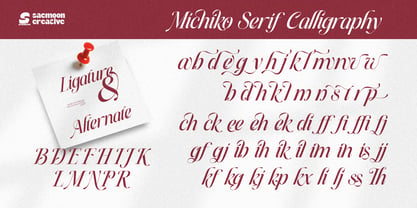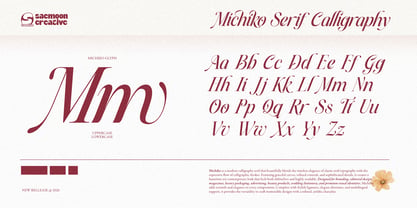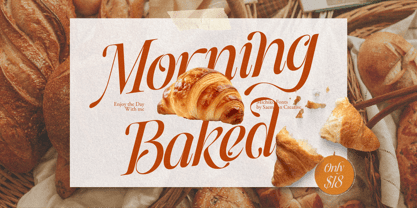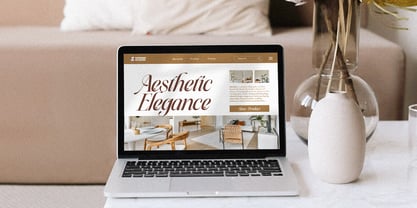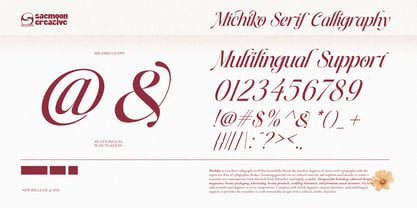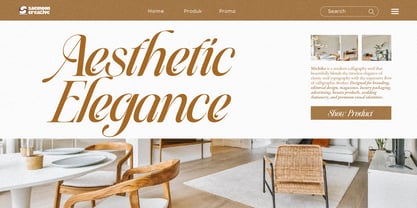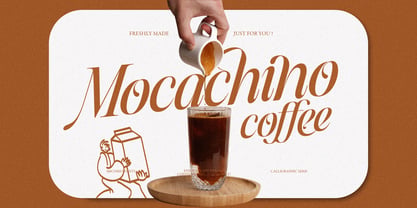
Michiko
Michiko is a modern calligraphic serif that gracefully combines the timeless elegance of classic serif typography with the expressive beauty of flowing calligraphic strokes. Designed with refined curves, high contrast, and luxurious details, it brings sophistication to every project while maintaining excellent readability.
Whether you're creating a premium brand identity, elegant packaging, editorial layouts, wedding stationery, or luxury advertising, Michiko delivers a distinctive visual presence that feels both contemporary and timeless.
Its graceful letterforms make it an ideal choice for fashion brands, beauty products, perfume packaging, boutique logos, magazines, social media, invitations, book covers, and high-end marketing materials.
Michiko is thoughtfully crafted for designers who want to create memorable and sophisticated typography with effortless elegance.
Perfect For
• Luxury Branding
• Editorial Design
• Fashion & Beauty
• Cosmetic Packaging
• Perfume Labels
• Wedding Invitations
• Logos & Visual Identity
• Magazine Headlines
• Social Media Graphics
• Product Packaging
• Boutique Branding
• Photography Watermarks
Elevate your creative projects with the refined elegance of Michiko, where classic sophistication meets modern calligraphic expression.